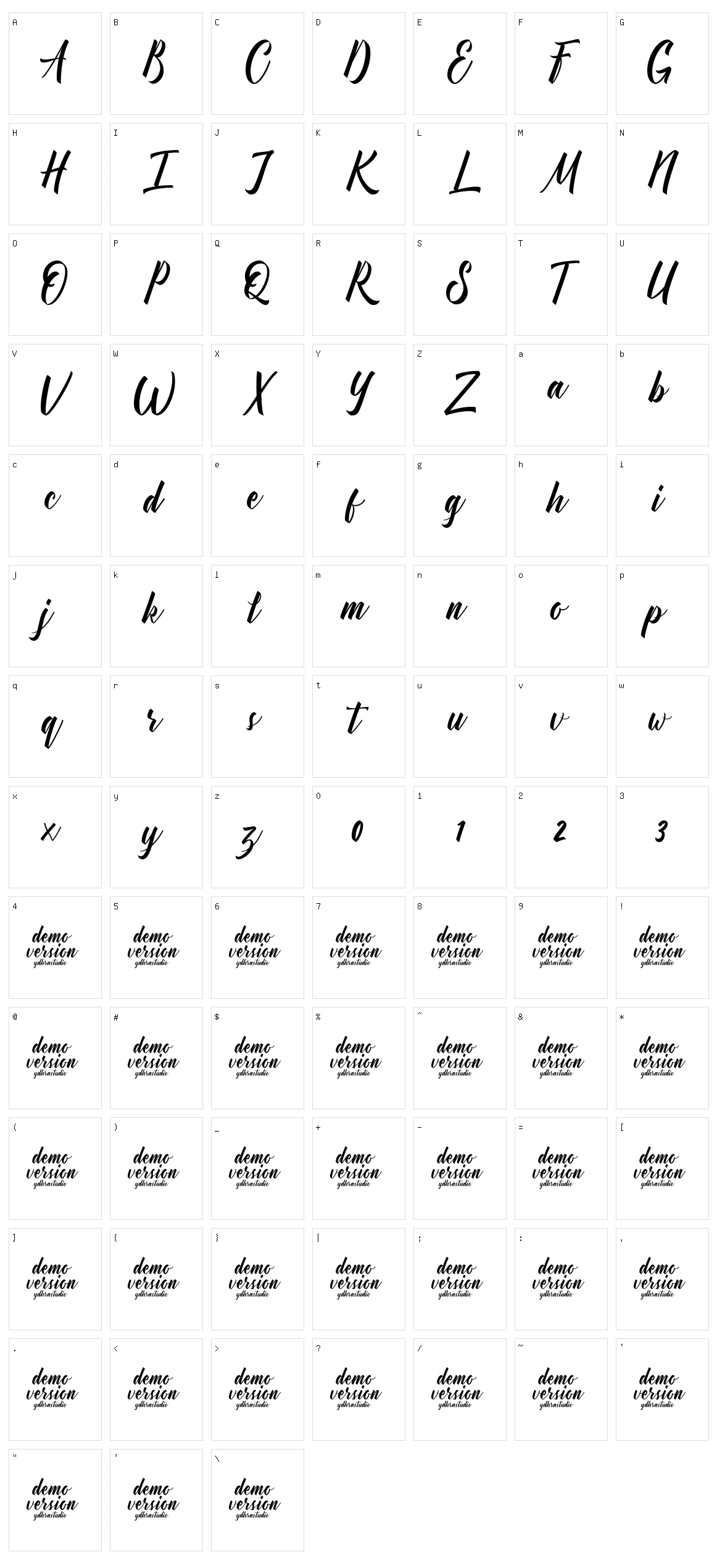
The free font Manhattan is carefully designed by Ydhra Studio, showcasing a thoughtful balance of creativity and usability and falls under the Script font style. When you download the ZIP file, it contains only 16.83 KB of font files, making it lightweight and quick to download. Please review the license details below to understand permitted usage and distribution rights. If license information is not available, we recommend using this font for personal projects only or contacting the author directly for commercial usage permissions.